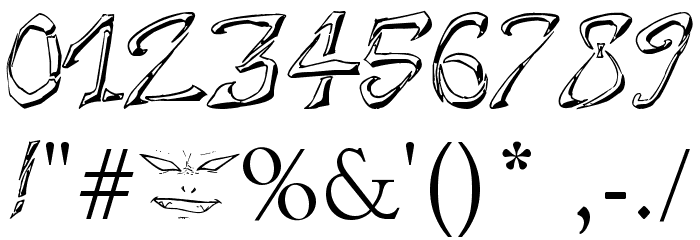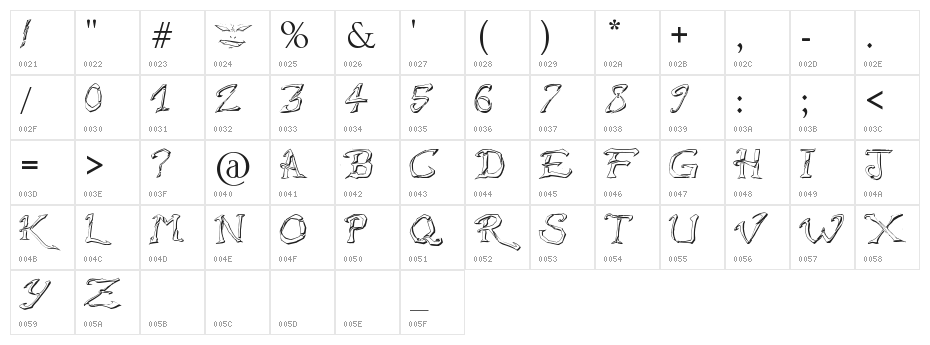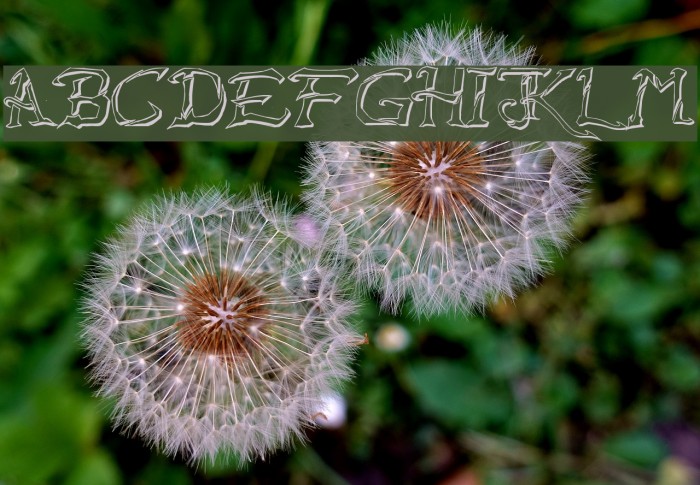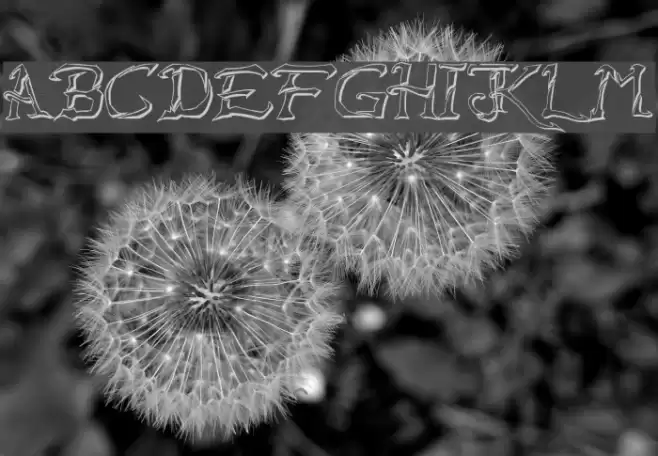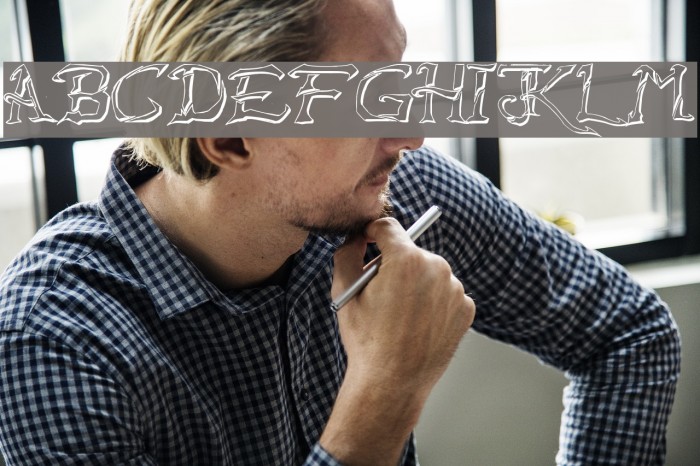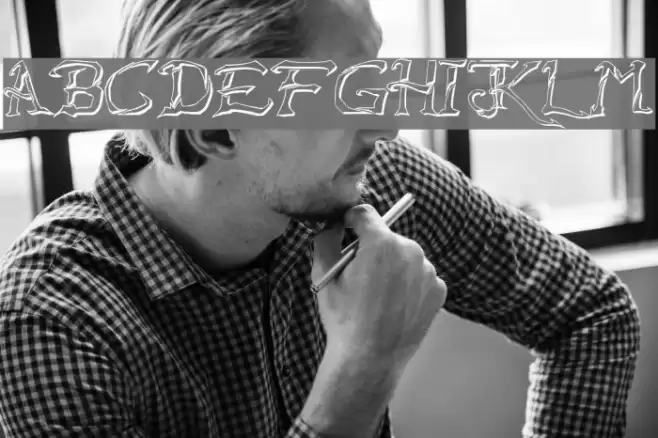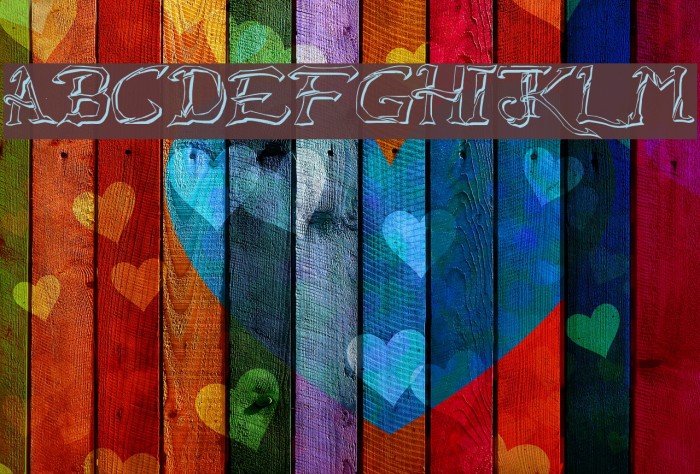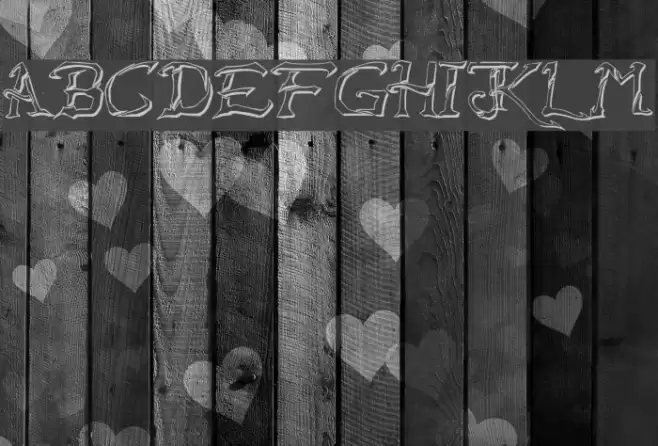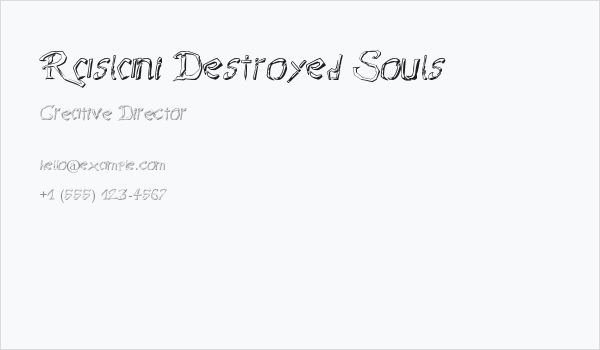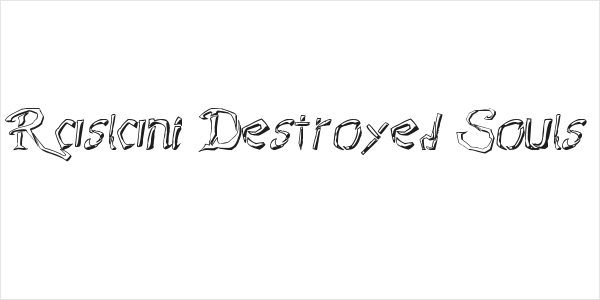
Raslani Destroyed Souls Font
Raslani Destroyed Souls Description
This font features a distressed and edgy style, characterized by its jagged and irregular strokes that give it a hand-drawn appearance. The uppercase and lowercase letters maintain a consistent theme of roughness, with each character appearing as if it has been scratched or eroded. The numbers and special characters follow the same aesthetic, adding to the overall chaotic and rebellious feel. This font is ideal for projects that require a gritty, urban look, such as album covers, posters, or video game graphics. Its unique style makes it stand out, capturing attention with its bold and unconventional design.
| Proposed Projects | Album covers, posters, video game graphics, street art designs. |